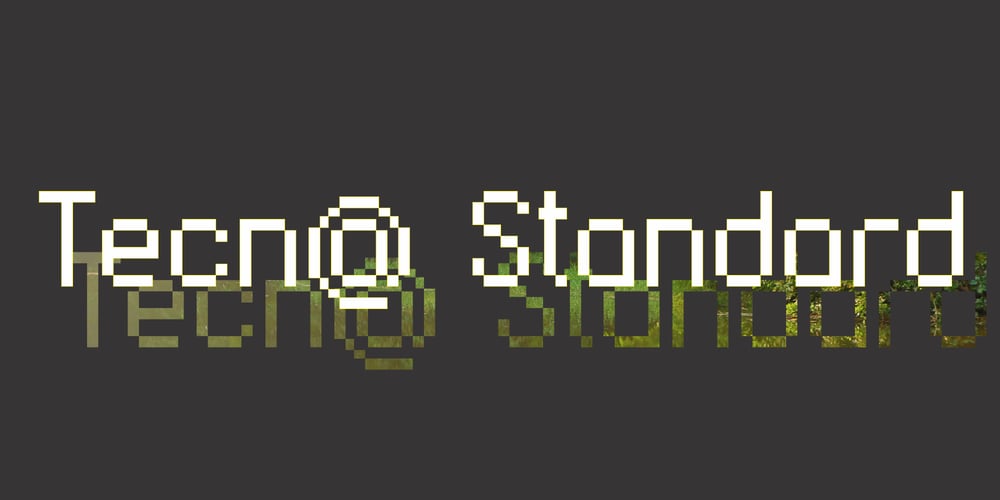
Tecna Standard Font Family was designed by Jorge Clavo and published by Descarflex. Tecna Standard contains 1 styles and family package options. The Tecn@ Standard family was designed so that its characters are legible and easy to interpret in any writing; among them, the descriptive memory of plans for example. Tecn@ Standard complements the Tecn@ Background Light and Dark Square Triangle font family.